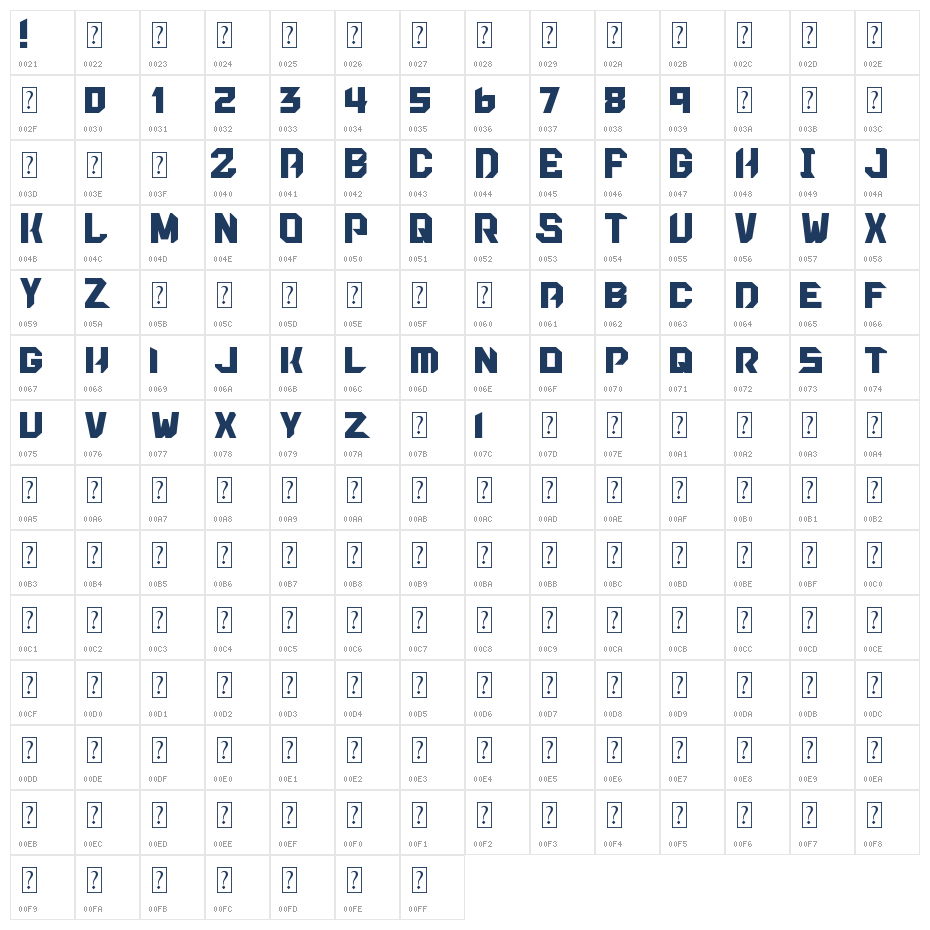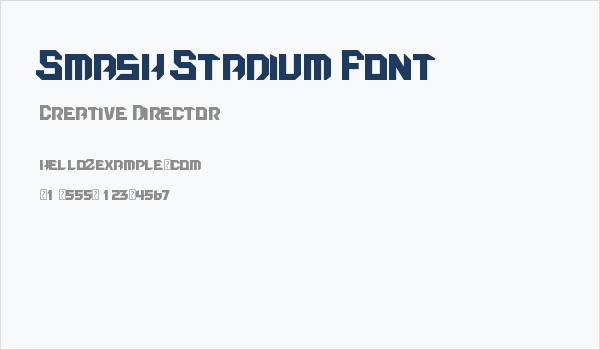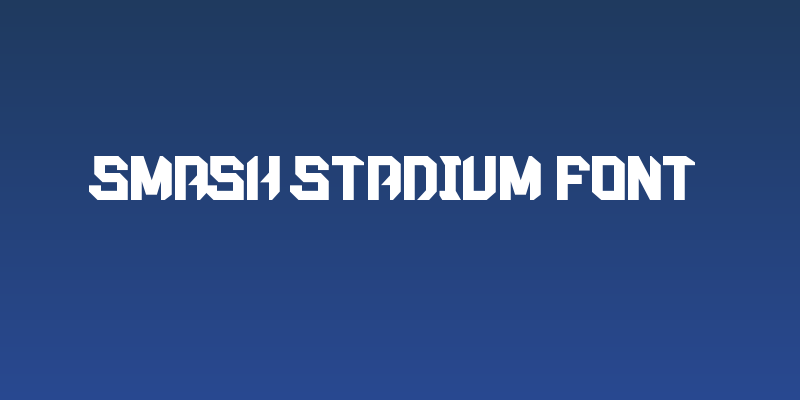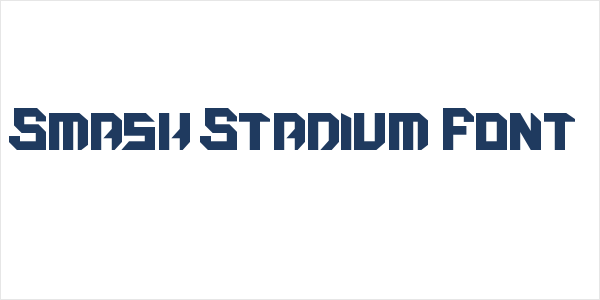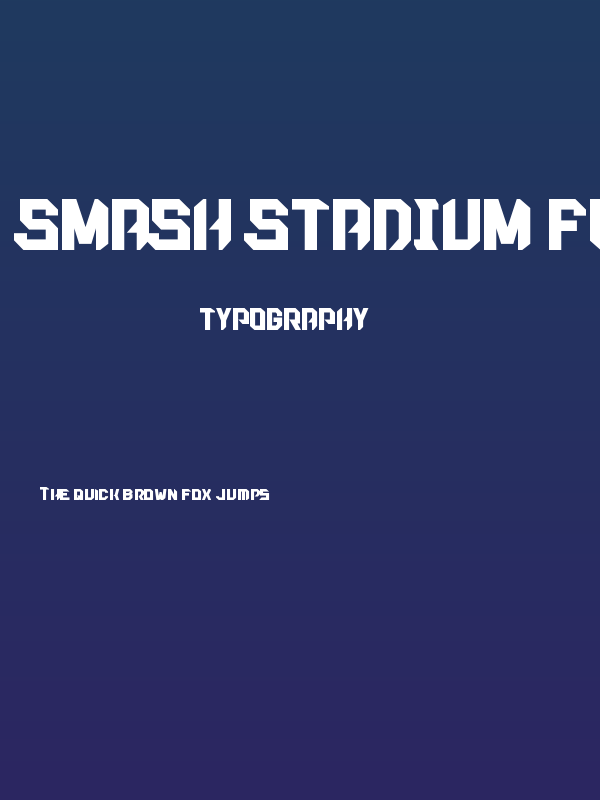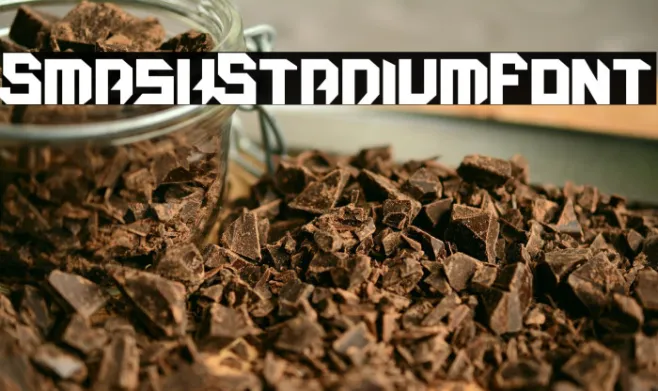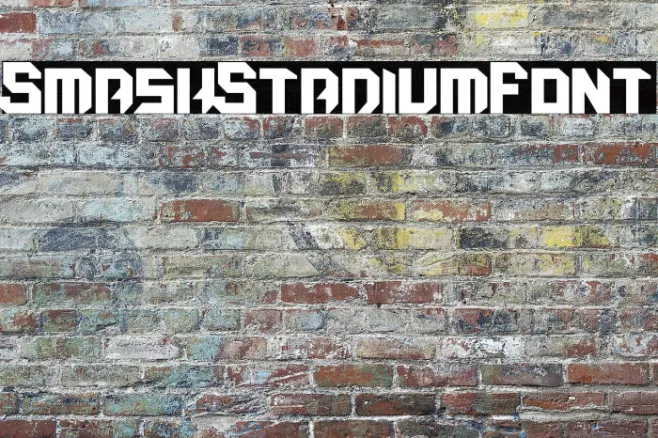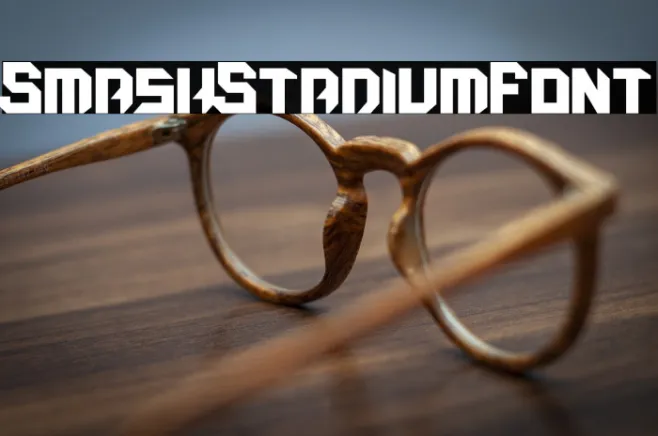
Smash Stadium Font Font
Smash Stadium Font Description
Bold, blocky, geometric sans-serif font with a strong, industrial appearance. The characters have sharp angles and a uniform stroke width, giving it a modern and sturdy look.
| Overall Style | Modern, Industrial |
| Use Case | Headlines, Posters, Logos, Titles |